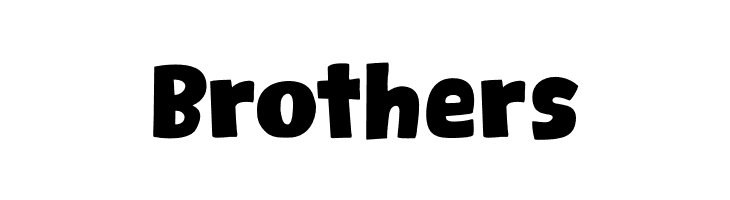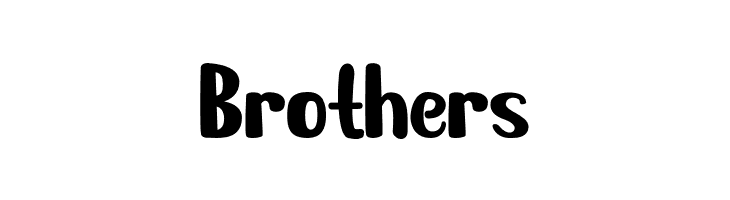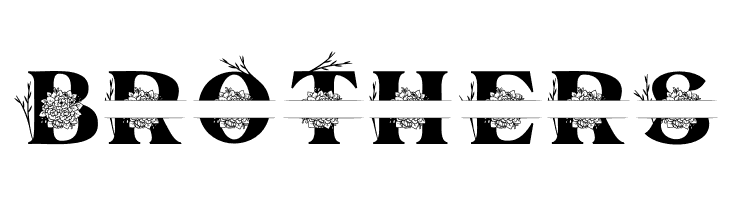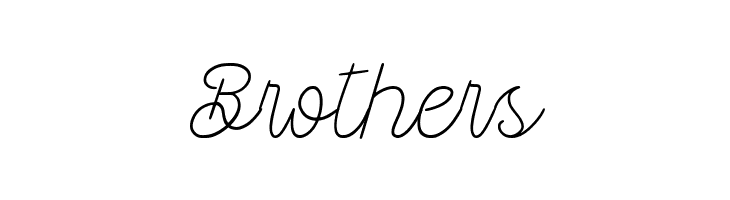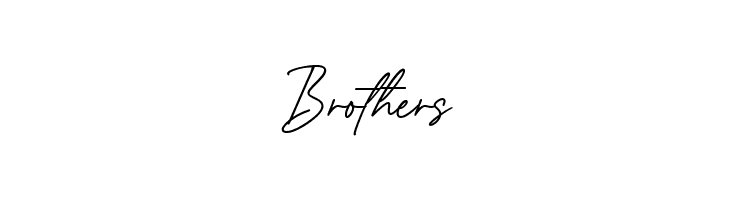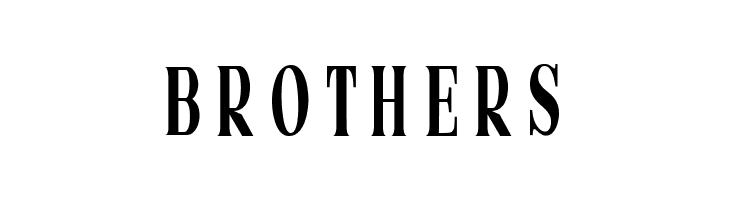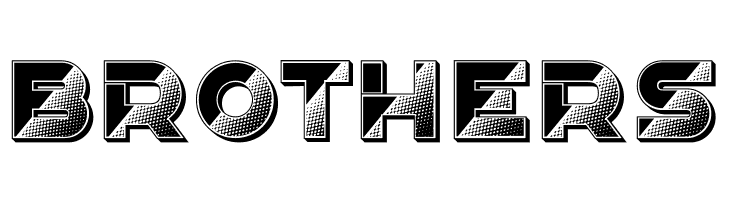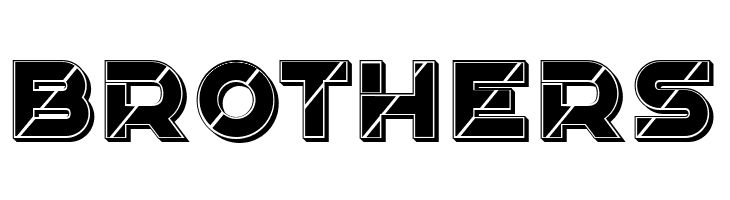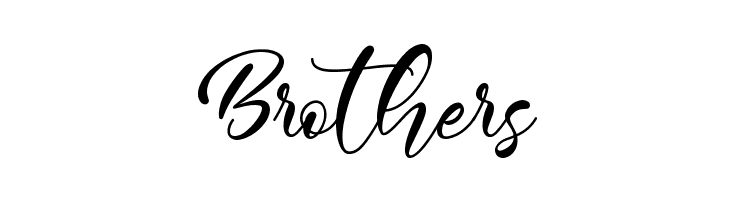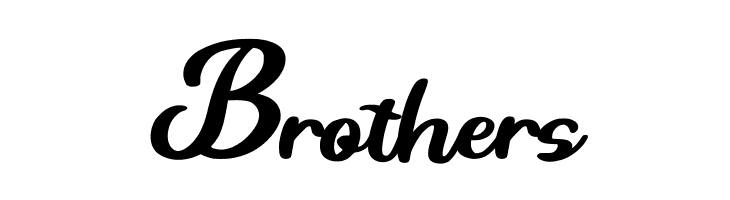
A decorative font with floral embellishments and bold, artistic letters.
A bold, handwritten font with a playful and casual style.
A graceful and sophisticated script font with fluid, cursive strokes.
A bold, italicized font with a gradient effect and thick outlines, ideal for decorative use.
A bold, decorative font with a gradient effect and geometric structure.
A bold, italicized font with a futuristic and dynamic design.
A bold, geometric font with a modern and industrial style.
A playful and elegant script font with flowing, cursive letters.
A bold, flowing script font with elegant curves and smooth connections.
A handwritten, cursive font with a casual and elegant style.
A bold, playful font with thick, rounded strokes and a whimsical, hand-drawn feel.
A bold, high-contrast serif font with a classic yet modern style.
A modern, clean sans-serif font with geometric letterforms.
A fluid, cursive script font with elegant, connected characters.
A bold, expressive script font with high contrast and fluid connections.
A bold, expressive script font with elegant curves and dynamic flow.
An elegant, flowing script font with ornate uppercase and cohesive lowercase letters.
A dynamic and elegant script font with fluid, cursive letterforms.
An elegant, thin script font with graceful, flowing strokes.
A playful, bold font with rounded edges and a whimsical style.
A playful, bold font with a hand-drawn, rounded style.
A bold, geometric font with a filled, three-dimensional look and retro-futuristic style.
A bold, decorative font with a 3D effect and dotted textures.
A graceful script font with flowing curves and decorative flourishes.
A bold, modern font with thick, uniform strokes and a geometric structure.
A clean, modern, and light-weight font with wide spacing and balanced proportions.
A bold, playful font with exaggerated curves and a quirky style.
A jagged, edgy font with a hand-drawn, rebellious style.
A decorative font with calligraphic and ornate elements, featuring flowing and intricate strokes.
( Fonts by 177Studio )
A bold, playful font with rounded edges and a bubbly aesthetic.
( Fonts by Kurnia Setyadi - Personal-use only. For commercial use please contact owner. )
A playful, hand-drawn font with bold, irregular characters and a whimsical touch.
( Fonts by nariswari_creative - Taufik Dwi Purnomo - Personal-use only. For commercial use please contact owner. )
A bold, dynamic brush script font with expressive strokes and a hand-painted look.
( Fonts by Etigletters - Afridah Ciputra - Personal-use only. For commercial use please contact owner. )
A whimsical, cursive font with flowing, interconnected strokes.
A dynamic, italic font with moderate contrast and subtle serifs, offering a modern yet timeless appeal.
An elegant, cursive handwritten font with flowing lines and a sophisticated style.